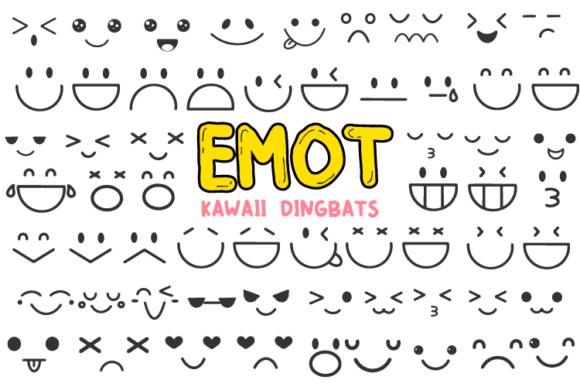
Introducing Emot Font, the ultimate choice for all your creative needs! This adorable and playful dingbats font is the perfect addition to any design, guaranteed to bring a smile to your face. Created by the talented Letterayu, Emot Font is not just any font - it's the Best Font For Logos 2014!
With Emot Font, you can unleash your imagination and let your creativity run wild. This font adds a touch of cuteness and friendliness to every project, making it the ideal choice for logos, branding, and any design that needs a little extra charm. Say goodbye to boring and hello to Emot Font!
What sets Emot Font apart is its ability to evoke emotions and create a connection with your audience. Its jolly and expressive characters will captivate anyone who lays eyes on them, drawing them in and leaving a lasting impression. From joyful smileys to quirky symbols, Emot Font has it all.
But Emot Font is not just about looks - it's also incredibly versatile and easy to use. With its extensive library of dingbats, you'll find the perfect icon for every occasion. Whether you're designing a website, creating social media graphics, or even crafting personalized invitations, Emot Font has got you covered.
Join the countless designers who have already fallen in love with Emot Font and experience the magic for yourself. Let this font bring a touch of whimsy and delight to your designs, making them stand out from the crowd. Don't limit your creativity - with Emot Font, the possibilities are endless!